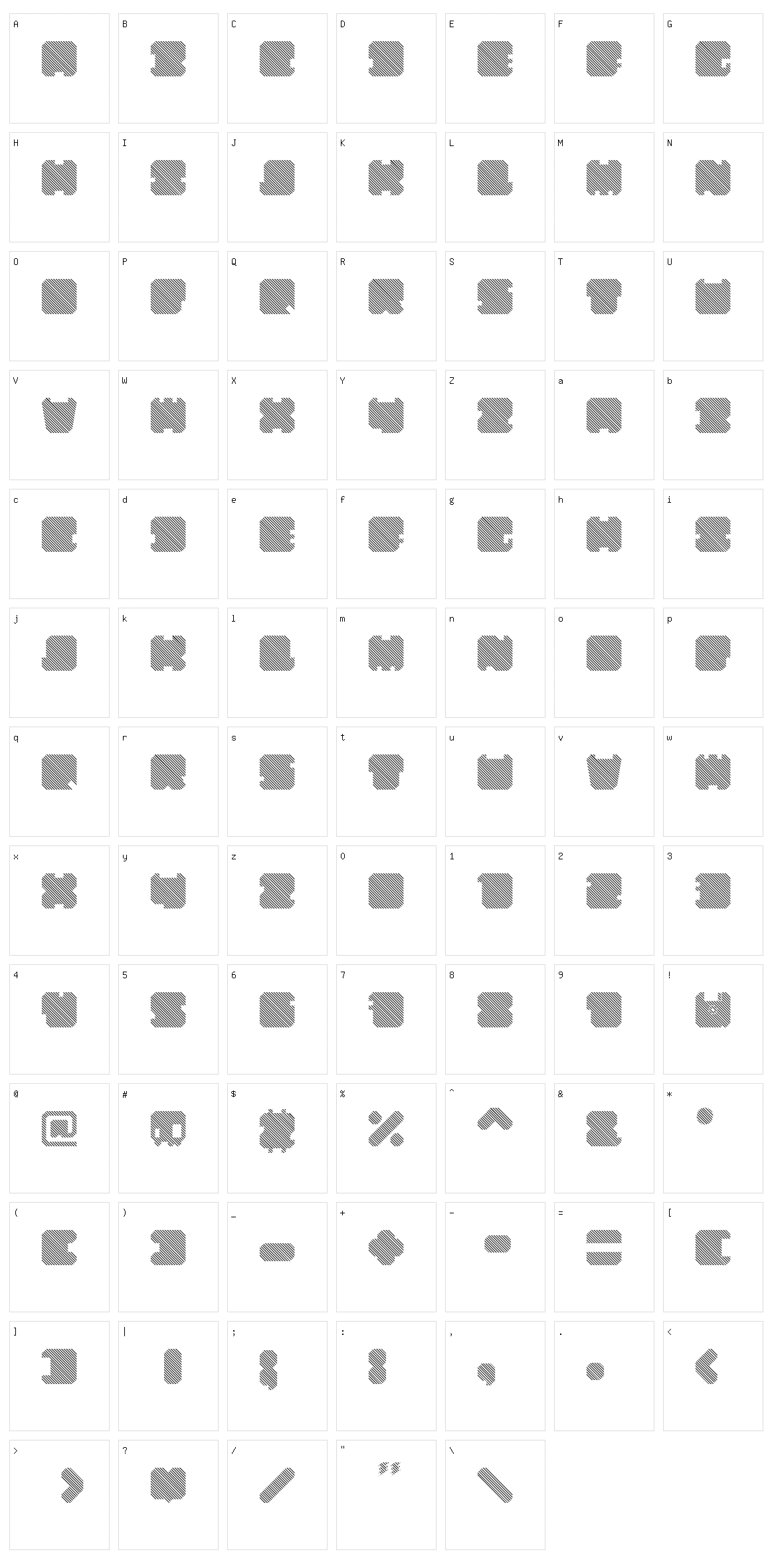
The free font SHD TechnoType is carefully designed by Marc Büttner, showcasing a thoughtful balance of creativity and usability and falls under the Square font style. When you download the ZIP file, it contains only 40.3 KB of font files, making it lightweight and quick to download. Please review the license details below to understand permitted usage and distribution rights. If license information is not available, we recommend using this font for personal projects only or contacting the author directly for commercial usage permissions.
SHD TechnoType (Freefont)